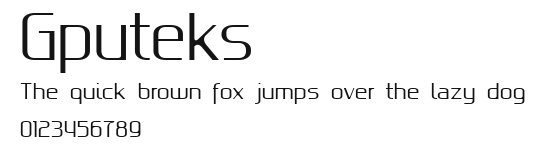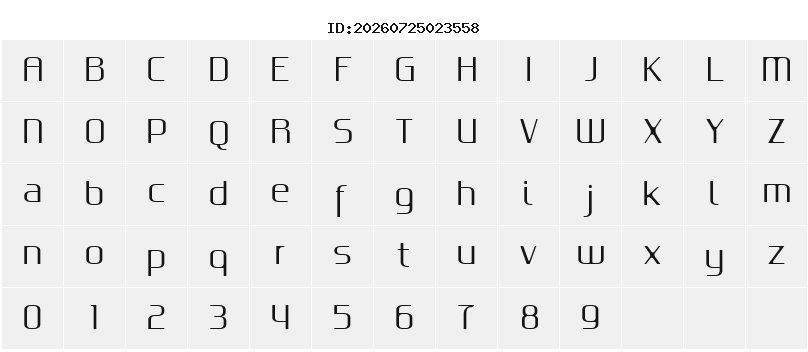
Gputeks Preview
• Font Name: Gputeks
• Full Font Name: Gputeks Regular
About Gputeks.ttf
Gputeks.ttf is a modern, elegant sans-serif font designed for ultimate readability and visual harmony. Perfect for branding, headlines, web design, and print materials.